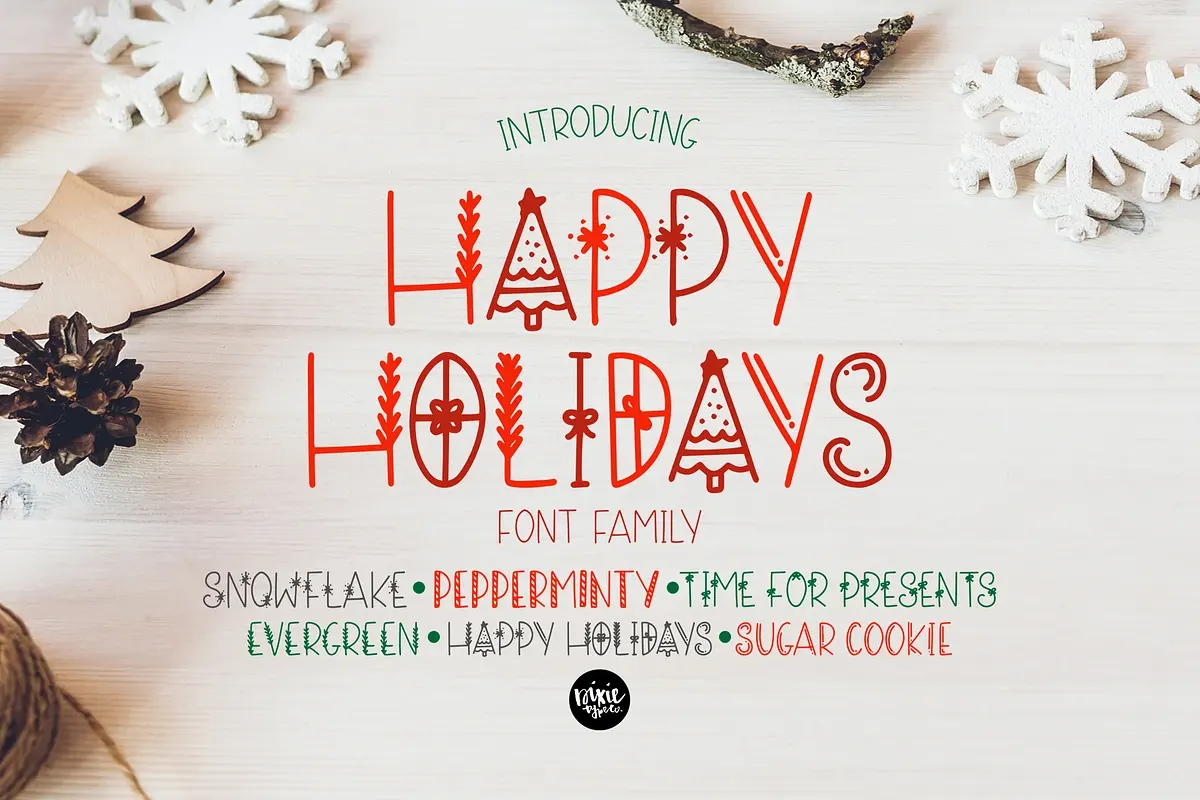
HAPPY HOLIDAYS Font Family Free Download is a cheerful and festive typeface collection that brings the spirit of the holiday season to your designs. Featuring a variety of styles, this font family is perfect for creating Christmas cards, holiday greetings, event invitations, gift packaging, and social media graphics. With its playful and warm letterforms, it adds a sense of fun and celebration to your typography.
Whether you're working on a seasonal campaign, crafting personal holiday messages, or designing for a festive event, the HAPPY HOLIDAYS font family offers versatility and holiday charm.